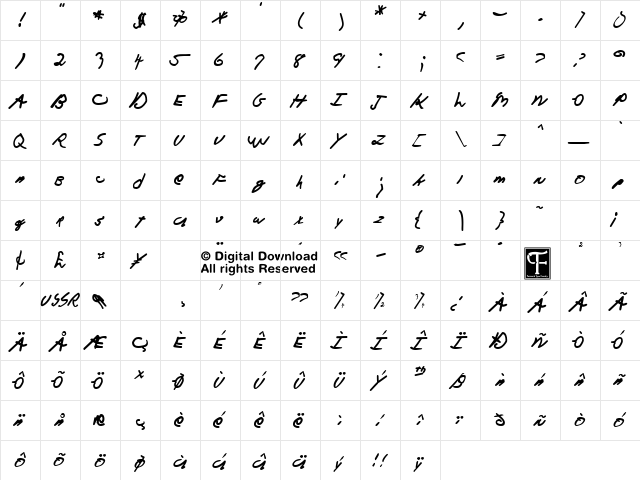
Oswald Conspiracy Regular
Design Context for Oswald Conspiracy Typeface
Oswald Conspiracy is a composed and adaptable typeface that performs quietly and consistently across a wide range of design contexts.